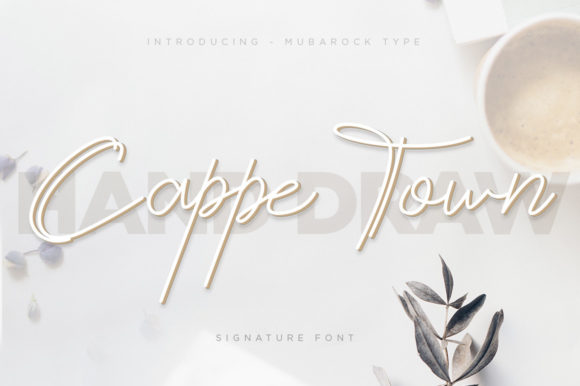
Capetown Font
Font Name : Capetown Font
Author : mubarocktype
Immerse yourself in the beauty of our Capetown font, a sweet and subtle handwritten masterpiece that will add a touch of sophistication to your designs. Its carefully crafted lines and elegant curves will make your words sing, whether you're creating invitations, logos, or heartfelt messages.